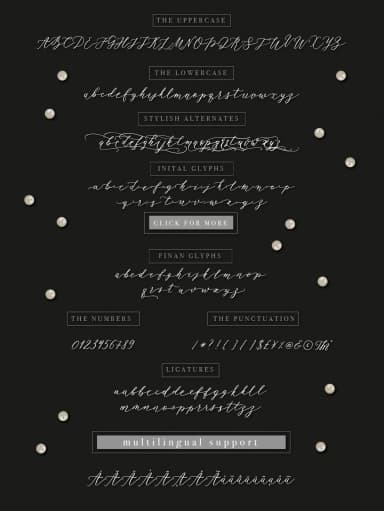
1 / 8About Rhapsody Font
Rhapsody by Red Ink is a spirited script font that captures the authentic energy of handwritten letterforms in motion. With its bouncy, rhythmic curves that dance across the page, this design brings genuine movement and personality to your projects while preserving the organic warmth that makes handwriting feel personal, approachable, and inviting rather than machine-generated. This versatile handwritten script finds its home across numerous design applications and creative contexts. Wedding invitation suites gain an approachable elegance when set in Rhapsody, striking that delicate balance between formal sophistication and intimate warmth that today's couples seek. Greeting card designs feel authentically personal and memorable rather than mass-produced when they feature these flowing, expressive letterforms. Social media graphics and inspirational quote posts benefit significantly from the authenticity that handwritten scripts convey, content designed with Rhapsody tends to generate stronger engagement and shareability among audiences who value genuine, human-centered design over corporate sterility. For small business owners and boutique brands, Rhapsody delivers the distinctly handcrafted aesthetic that helps artisanal products stand apart from competitors relying on standard, impersonal typefaces. Whether you're designing packaging, product labels, display signage, or personal stationery, this typeface's distinctive character enhances perceived quality and deepens the human connection with your audience. Bring Rhapsody's handwritten charm to your next creative project by getting it on Creative Fabrica.
- Elegant, Flowing, Rhapsody
Rhapsody Font is a script font that shines as a display or heading face. Pair it with a clean sans-serif or serif font for body text β the contrast creates a clear hierarchy while the two styles stay balanced and easy to read.
Rhapsody Font
by Red Ink